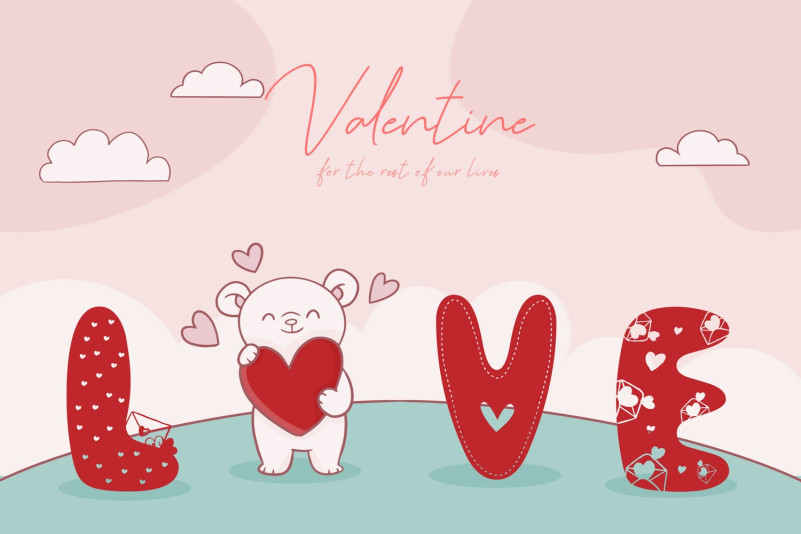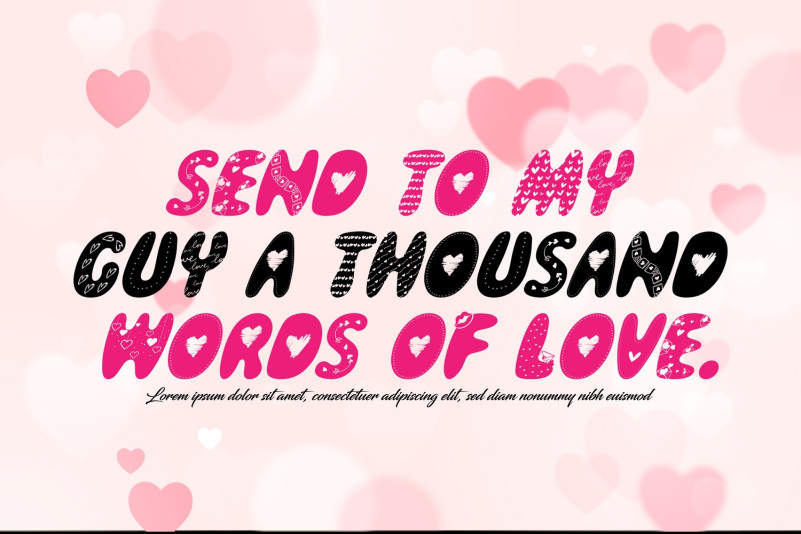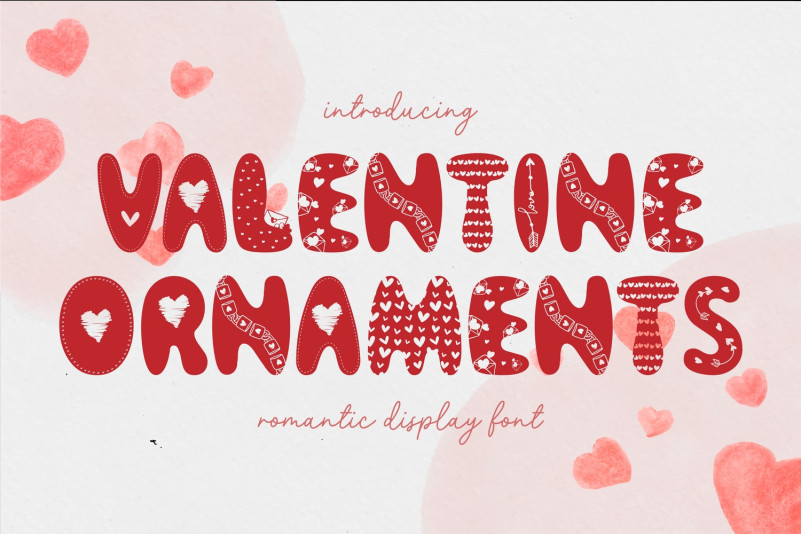
Valentine Ornaments Font
Valentine Ornaments Display Font is a fun Valentine’s Day font with symbols! It’s stylish display font about love. This font is perfect for decorating the holiday, for children’s products, wedding invitations, posters, greeting cards and much more!